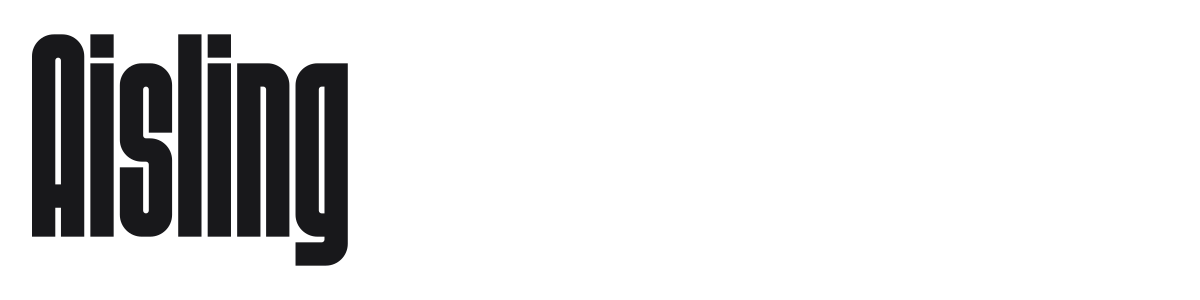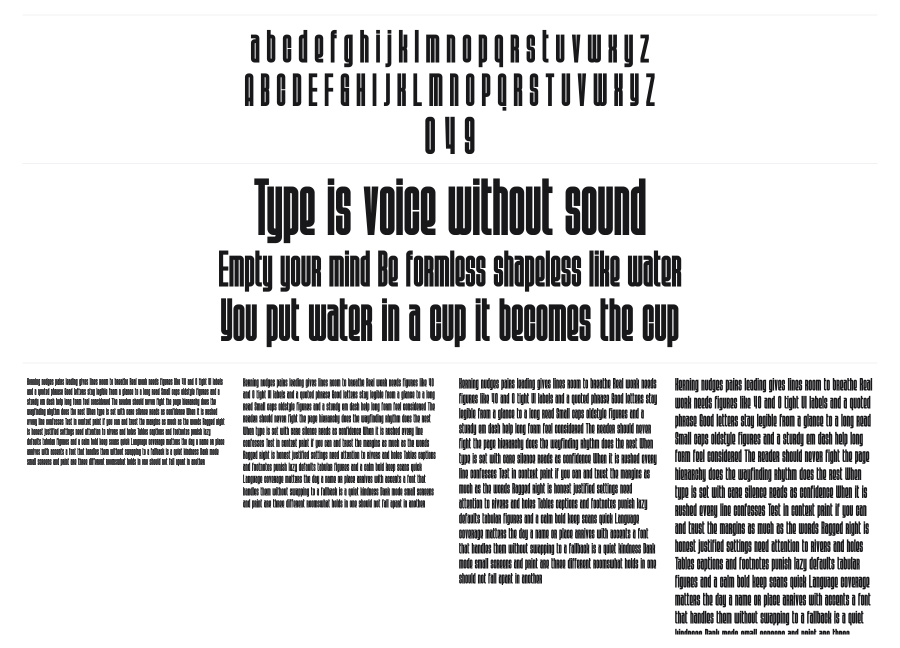
Aisling
Aisling is a heavily condensed grotesque sans-serif built around extreme vertical compression and bold weight. The letters stack tight with almost no breathing room, creating a dense typographic mass that commands attention at headline sizes. It comes in six styles with ligatures, alternates, and multilingual support, making it a flexible tool for branding, packaging, and editorial work.